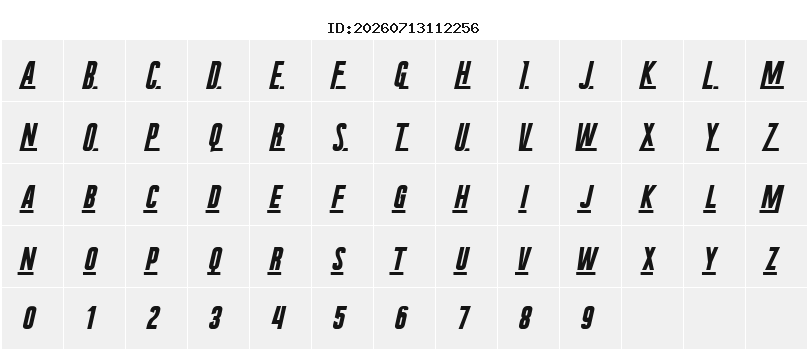
Radium Corp Preview
• Font Name: Radium Corp
• Font ID: JamesBarnardo: Radium Corp: 2014
• Full Font Name: RadiumCorp
• PostScript Name: RadiumCorp
• Character Count: 71
• Manufacturer: James Barnardo
About Radium Corp.ttf
Radium Corp.ttf is a modern, elegant sans-serif font designed for ultimate readability and visual harmony. Perfect for branding, headlines, web design, and print materials.